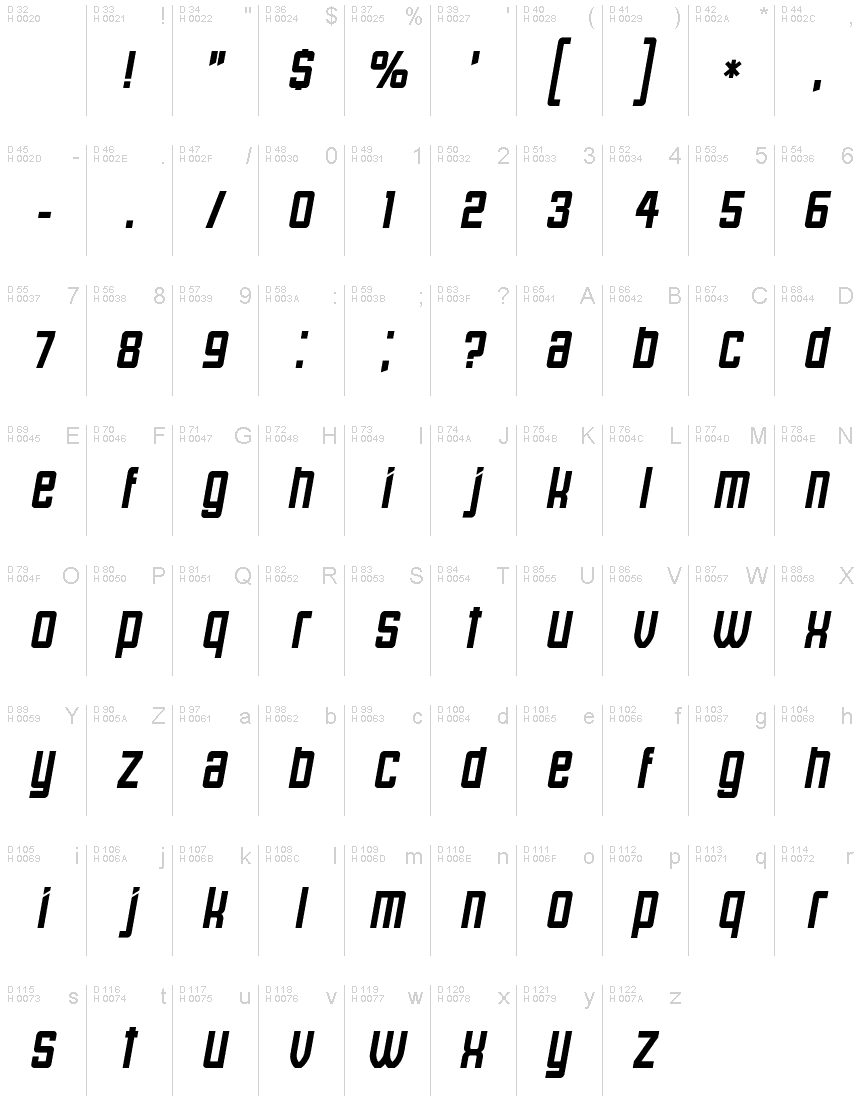
Riviera Book Condensed
Riviera Book Condensed is a stunning display font designed by Vladimir Nikolic. With its extra-condensed width and elegant style, this font is perfect for a variety of projects. Use it to add sophistication to your book covers, create striking headlines for your magazine layouts, or give your branding a sleek and modern look. Riviera Book Condensed's clean lines and classic design make it suitable for anything from fashion blogs to tech startups. This font will make sure your message is loud and clear, while also leaving an unforgettable impression on anyone who sees it.